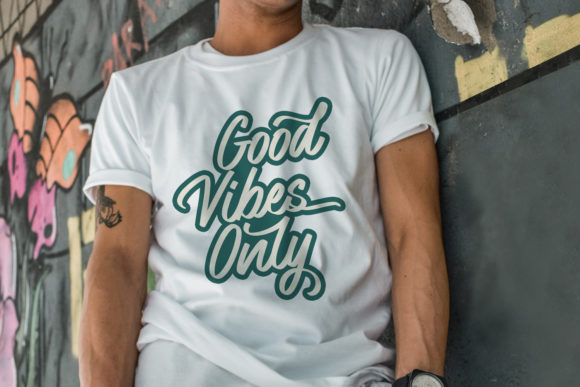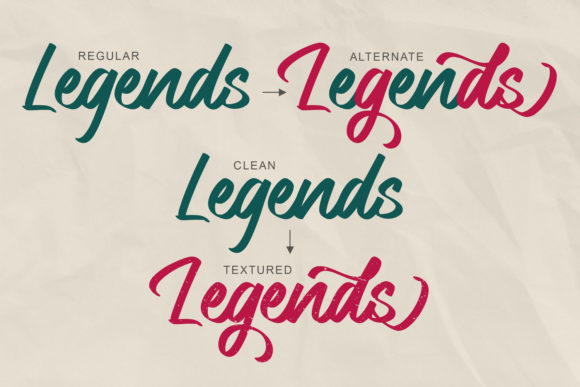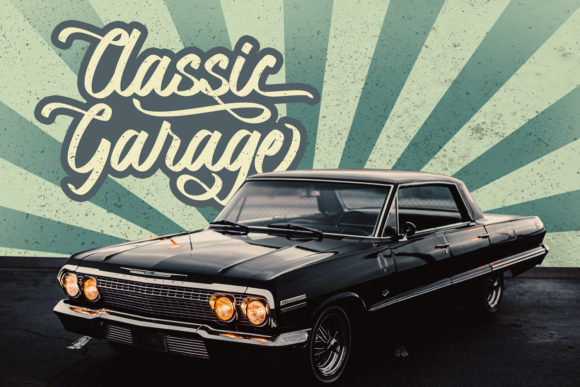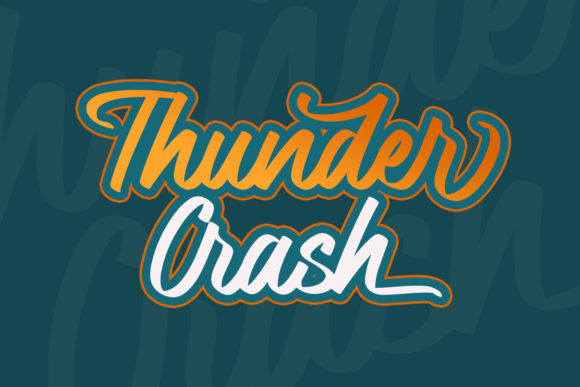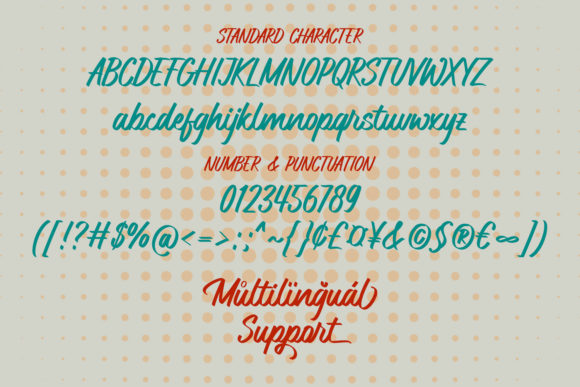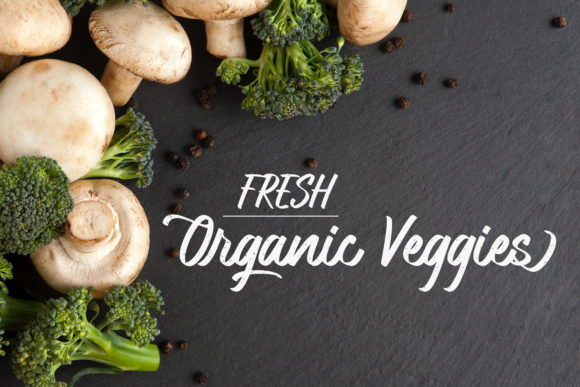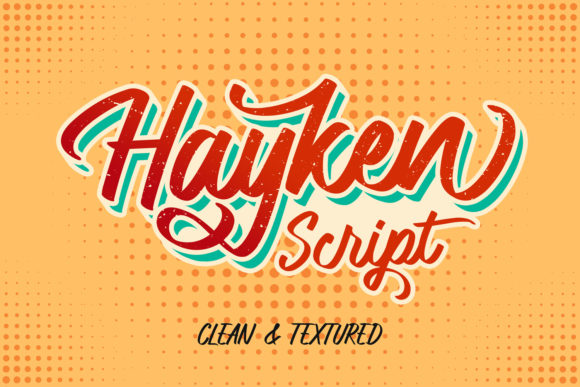
Introducing Hayken Script Font: Elevate Your Designs with Dynamic Elegance
In the realm of typography, a font can make or break a design. For creatives looking to infuse their projects with a touch of dynamic elegance, the Hayken Script Font emerges as a game-changer. This script font, characterized by its energetic style, is not just a typeface; it’s a design statement. Whether you’re crafting titles, logotypes, t-shirt designs, letterheads, signage, labels, newsletters, posters, badges, or any other visual project, Hayken is poised to transform your ideas into captivating visuals.
Unleash Your Creativity with Hayken
Hayken Script Font is meticulously designed to bring a unique and striking presence to your designs. Its dynamic and energetic style doesn’t just add text to your artwork; it elevates your message, making it more engaging and eye-catching. The versatility of Hayken means it can seamlessly integrate into various design projects, from the most intricate digital artworks to straightforward yet impactful print designs.
Key Features of Hayken Script Font
- Dynamic and Energetic Style: Hayken’s unique style ensures that your designs stand out with a vibrant and lively feel.
- Versatility: Perfect for a wide range of applications including titles, logotypes, t-shirt designs, letterheads, signage, labels, newsletters, posters, badges, and more.
- PUA Encoded: Being PUA (Private Use Area) encoded, Hayken offers ease of access to all glyphs and swashes, allowing for a high degree of customization and creativity.
The Power of PUA Encoding
One of the standout features of Hayken Script Font is its PUA encoding. This technical aspect allows designers to access a wide range of glyphs and swashes without the need for additional software or complicated workarounds. Essentially, PUA encoding gives you the freedom to explore the full creative potential of the font, making it easier to customize and adapt to your specific design needs.
Applications of Hayken Script Font
The adaptability of Hayken Script Font makes it an invaluable asset for designers across various disciplines. Here are some of the key areas where Hayken can make a significant impact:
- Titles and Logotypes: Use Hayken to create memorable and impactful titles and logos that capture the essence of your brand or project.
- T-Shirt and Merchandise Designs: Add a stylish and contemporary touch to your apparel and merchandise designs.
- Signage and Advertising: Make your signage and advertising materials stand out with a font that’s both dynamic and elegant.
- Digital and Print Media: Whether it’s for a website, social media graphics, brochures, or posters, Hayken can enhance your digital and print media with its distinctive style.
Tips for Using Hayken Script Font
To get the most out of Hayken Script Font, consider the following tips:
- Experiment with Swashes: Don’t be afraid to explore the various swashes and glyphs available. They can add a unique touch to your designs.
- Combine with Other Fonts: Hayken can be paired with other fonts to create interesting contrasts and hierarchies in your designs.
- Consider Your Audience: Tailor your use of Hayken to your target audience. Its dynamic style can appeal to a wide range of viewers, but ensure it aligns with your project’s tone and message.
Hayken Script Font is more than just a typeface; it’s a creative tool designed to bring dynamism and elegance to your designs. Its versatility, combined with the ease of use provided by PUA encoding, makes it an excellent choice for designers and crafters looking to elevate their projects. Whether you’re a professional designer or a DIY enthusiast, Hayken invites you to explore new creative horizons and turn your ideas into stunning visuals.
In the world of design, fonts like Hayken Script Font are invaluable assets. They not only save time but also inspire creativity and ensure your work stands out. So, why settle for ordinary when you can make your designs extraordinary with Hayken?